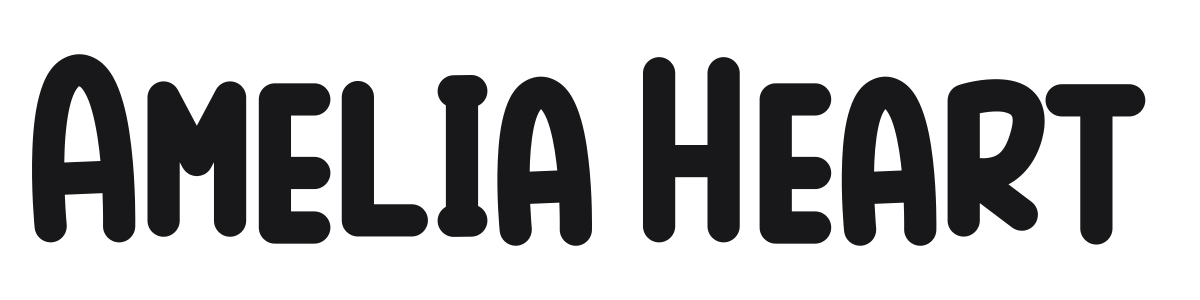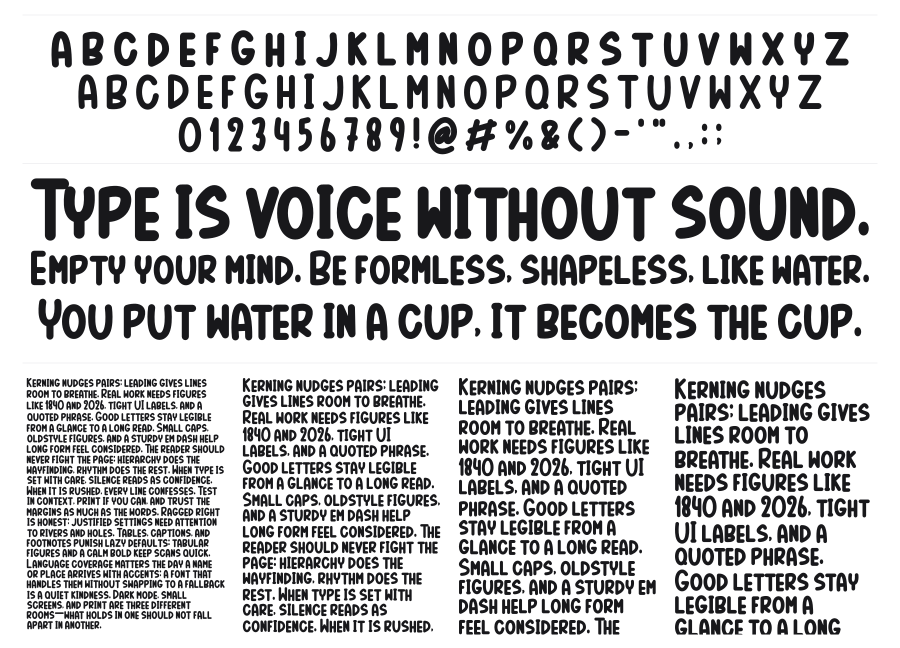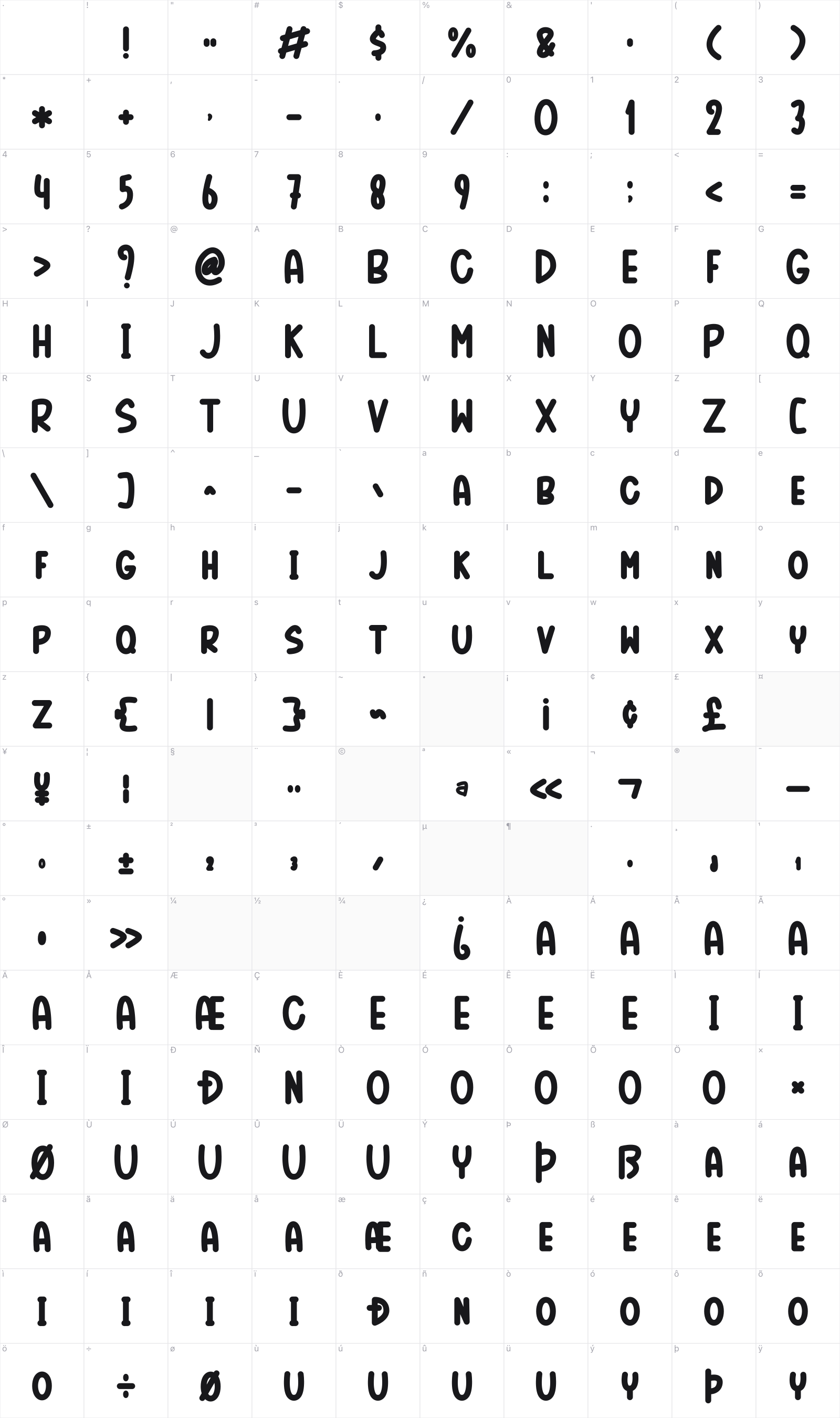
Amelia Heart
Amelia Heart is a bold, bubbly rounded sans with thick strokes and soft terminals that give every character a cheerful, cartoon-like weight. The uniform heaviness and wide proportions make it pop at large sizes without feeling aggressive. It suits playful branding, children's content, and casual headlines.